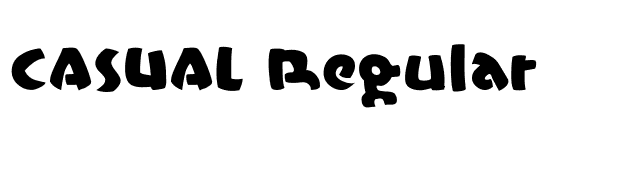
Casual Regular Font
While drawn in a classic greeting card style of lettering alfie is also comfortable in packaging brochures posters and cover art.